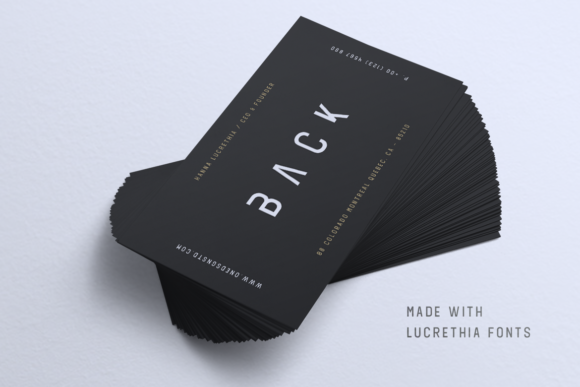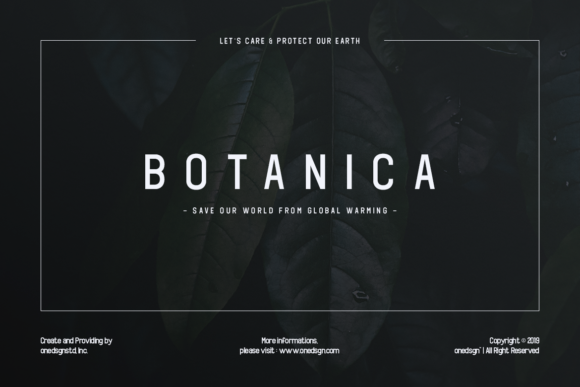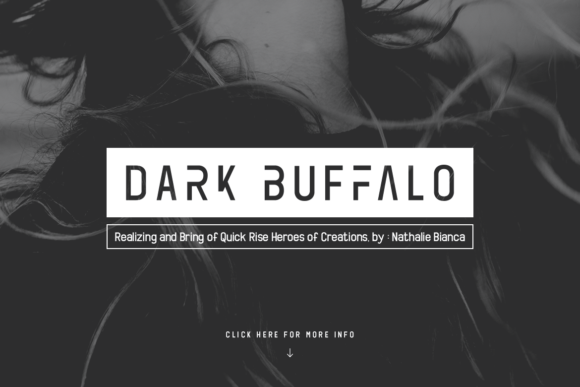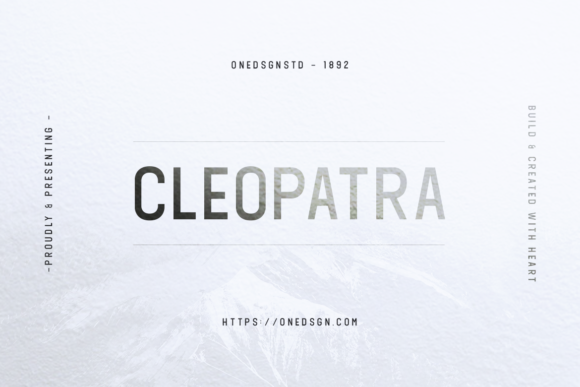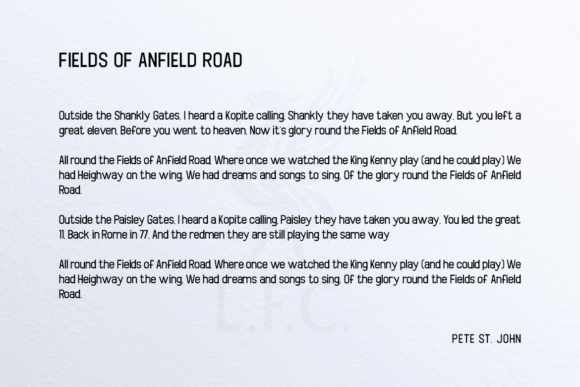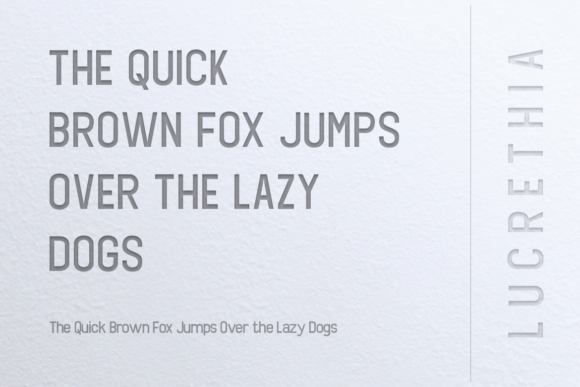
Introduction to Lucrethia Font
Lucrethia is a minimal sans serif font with a modern feel.
It will add a cool twist to any design project .
Key Features of Lucrethia Font
Why Choose Lucrethia Font?
Lucrethia Font offers exceptional quality and versatility, making it a valuable addition to your design toolkit. Whether you’re creating for personal projects or commercial use, Lucrethia Font delivers professional results.